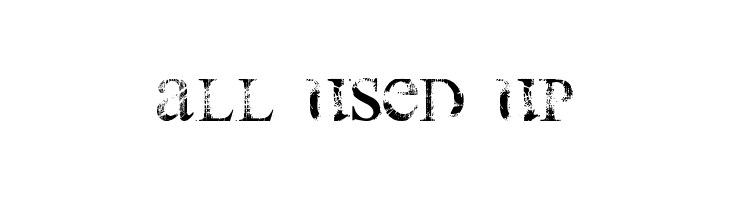
A modern, oblique monospaced font with a sleek, dynamic style.
A wild and chaotic font with jagged, stitched-like characters.
An outlined, fantasy-inspired font with sharp serifs and playful curves.
A bold, decorative font with stars and stripes, inspired by the American flag.
A bold, italic sans-serif font with a modern and dynamic style.
A bold, decorative font with a three-dimensional outline and sharp serifs.
A bold, playful, and condensed font with rounded, irregular characters.
A bold, angular blackletter style font with dramatic strokes.
A dot matrix LED-style italic font with a modern digital look.
A bold, condensed font with high contrast and decorative style.
A bold, tall serif font with strong vertical emphasis and pronounced serifs.
A bold, playful font with rounded characters and a modern style.
A bold, textured font with a hand-drawn, chalk-like appearance.
A playful, handwritten font with smooth, flowing lines and a casual, friendly appearance.
A bold, outlined font with a vintage, three-dimensional style.
A playful, hand-drawn font with a whimsical and casual style.
A bold, decorative serif font with high contrast and elegant curves.
A bold, decorative font with an inline style, perfect for standout designs.
A bold, oblique font with a dynamic and modern style.
A bold, slanted font with a dynamic and modern style.
A bold, high-contrast serif font with dramatic strokes and elegant serifs.
A modern, geometric sans-serif font with uniform stroke width and clean lines.
A geometric and artistic font with circular motifs and intricate designs.
A slanted, elegant script font with smooth, flowing strokes.
A whimsical cursive font with playful loops and swirls.
A decorative serif font with sharp, angular serifs and a modern vintage style.
An artistic and decorative font with medieval-inspired letterforms and expressive style.